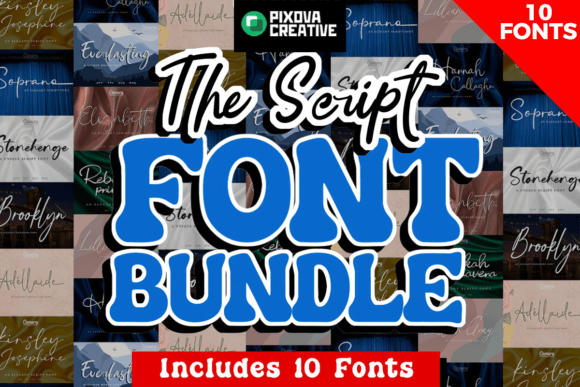
Unlock Your Creative Potential with the Script Bundle Font
In the world of digital design, fonts play a crucial role in conveying messages, evoking emotions, and creating visual identities. For creatives, finding the perfect font can be a daunting task, especially when working on projects that demand a unique and elegant touch. This is where the Script Bundle Font comes into play, offering a comprehensive collection of 10 hand-crafted scripts that can elevate your designs to new heights.
What is the Script Bundle Font?
The Script Bundle Font is a carefully curated collection of 10 elegant and unique script fonts, designed to cater to the diverse needs of creatives. Each font in the bundle is meticulously crafted to ensure that it not only stands out but also complements a wide range of design projects. From luxury branding and high-end advertising to digital art and personal crafts, this bundle provides the perfect typographic solutions.
Key Features of the Script Bundle Font:
- 10 Unique Fonts: A diverse collection of 10 elegant, hand-crafted script fonts that can add a touch of sophistication to any project.
The Benefits of Using Script Fonts in Your Designs
Script fonts have a unique ability to add a personal and creative touch to any design project. They can evoke emotions, create mood, and add a level of sophistication that standard fonts may not achieve. Here are some benefits of incorporating script fonts into your designs:
- Emotional Connection: Script fonts can create an emotional connection with the audience, making your message more relatable and engaging.
- Visual Hierarchy: With their varying styles and sizes, script fonts can help establish a visual hierarchy in your design, guiding the viewer’s eye through the content.
- Brand Identity: A unique script font can become a signature element of your brand’s identity, setting you apart from competitors and making your brand more memorable.
Who Can Benefit from the Script Bundle Font?
The Script Bundle Font is designed to meet the needs of a wide range of creatives and businesses. Here are some of the professionals who can benefit from this versatile font bundle:
- Graphic Designers: Looking for elegant and unique fonts to enhance their branding, advertising, and marketing materials.
- Digital Artists: Seeking distinctive typography to add a creative flair to their digital art and illustrations.
- Small Business Owners: Aiming to create a strong brand identity with custom fonts for their packaging, website, and promotional materials.
- Crafters and Makers: Needing stylish fonts for their DIY projects, crafts, and handmade goods.